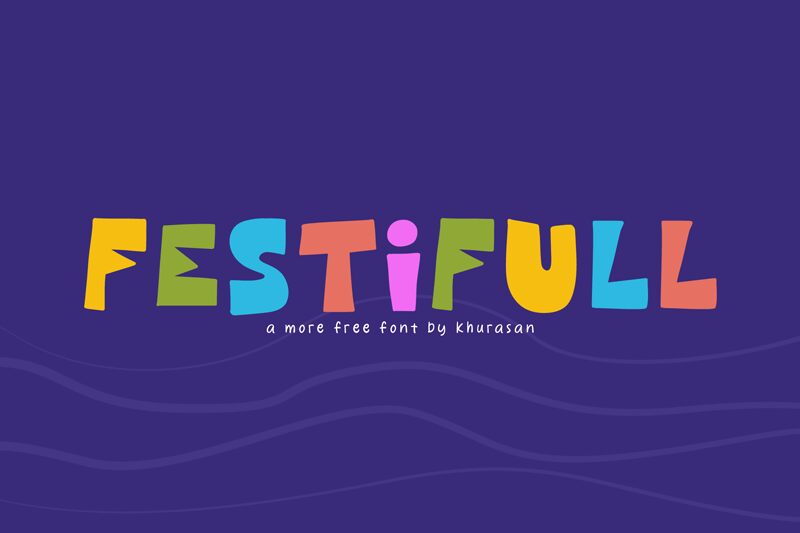
Festifull
Festifull, designed by Khurasan, is a modern and cute display font with a fun cartoon style. Its extra-bold weight adds emphasis and impact to any design.
This versatile font is ideal for a wide range of projects including posters, logos, magazines, book covers, banners, and more! With Festifull, you can create lovely designs that catch the eye and make a lasting impression. Let your creativity shine by incorporating this amazing font into your next project and watch as it transforms your ideas into something truly outstanding!